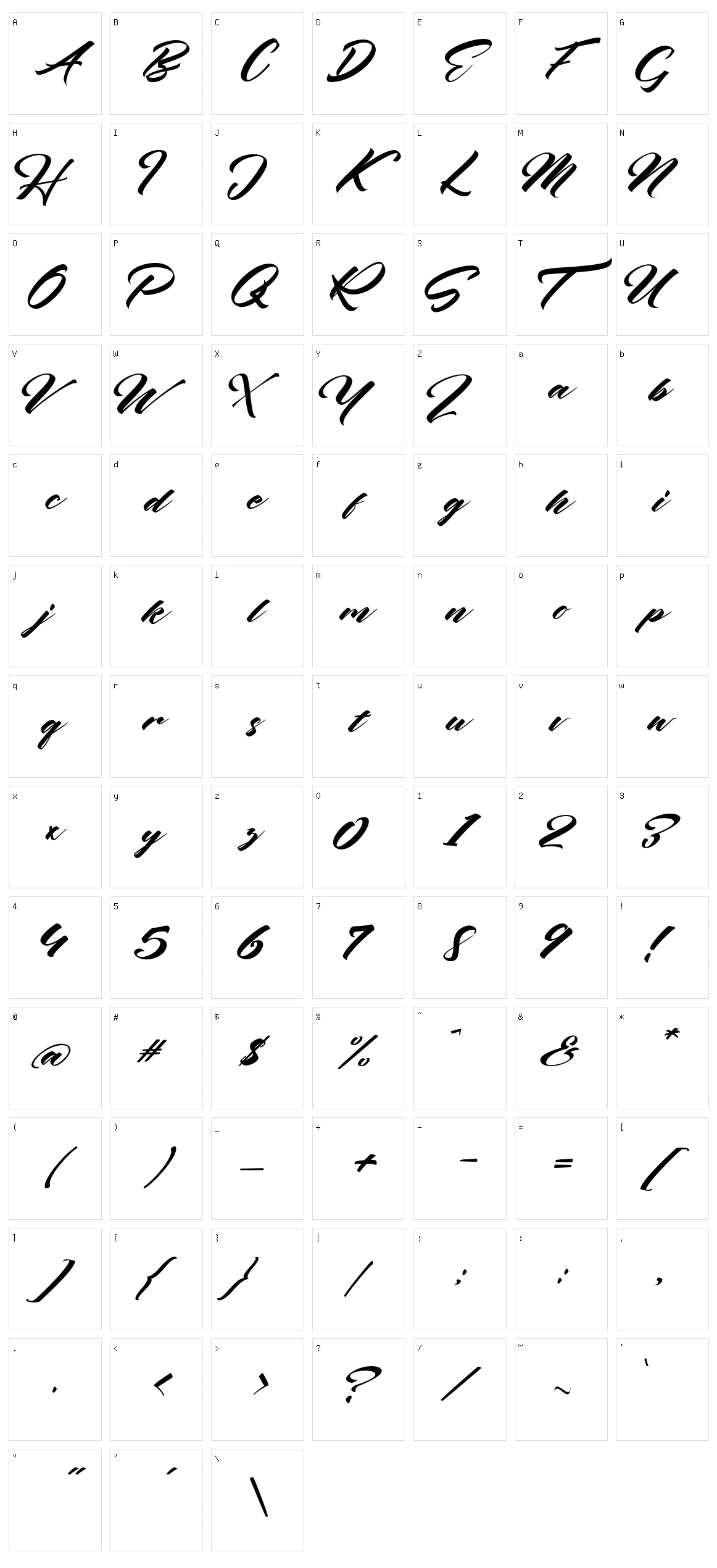
The free font Seinna Grace is carefully designed by Tegaki Script, showcasing a thoughtful balance of creativity and usability and falls under the Script font style. When you download the ZIP file, it contains only 54.07 KB of font files, making it lightweight and quick to download. Please review the license details below to understand permitted usage and distribution rights. If license information is not available, we recommend using this font for personal projects only or contacting the author directly for commercial usage permissions.
This beautiful modern lettering named "Seinna Grace Demo Version", its created with lovely and stylistic characters. This fonts works properly and perfectly for logos, wedding invitation card, stationary, packaging, clothing, flyer, apparel, magazines, brochures, headings, signature, lable, news, posters, badges, etc.
Seinna Grace (full version) features 327 glyphs and 82 alternate characters contain with opentype features. Seinna Grace has many stylistic alternate characters that allowing you to make each word look completely clean and elegant.